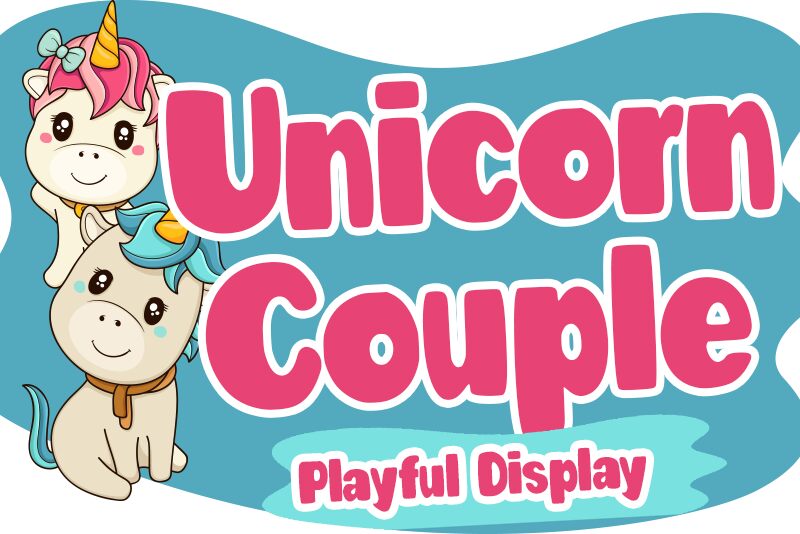
Unicorn Couple, designed by Stefani Letter, is a playful and whimsical display font that's perfect for adding a touch of fun to any project. With its extra-bold weight and cartoon style, this font is sure to make a statement. Its unique design makes it suitable for various projects such as children's books, greeting cards, party invitations, and even branding materials for businesses with a playful aesthetic. Let Unicorn Couple add a touch of magic to your next project!